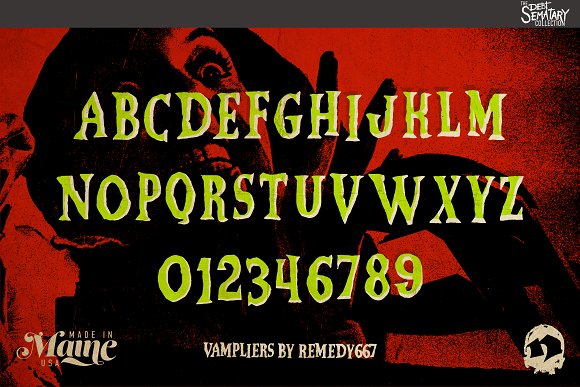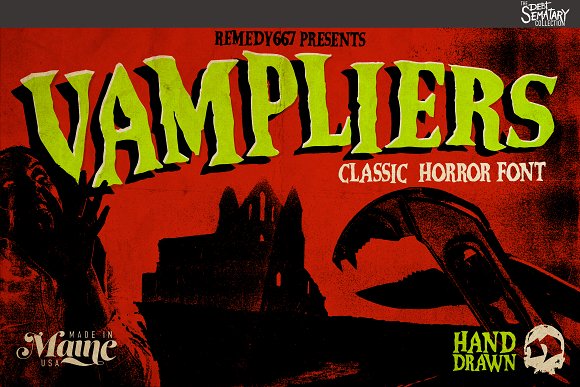
Vampliers Font
Vampliers FontVampliers is a handmade horror font, inspired by the lettering of classic sci-fi and horror film posters. It’s perfect for Halloween party invites, posters, packaging design… Any project you want to give that “vintage spooky” feel, Vampliers will protect your neck.